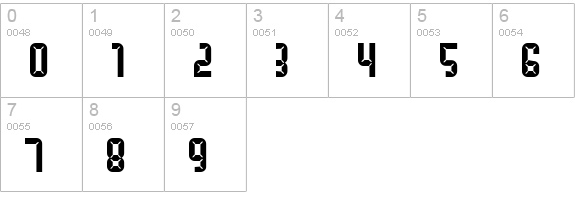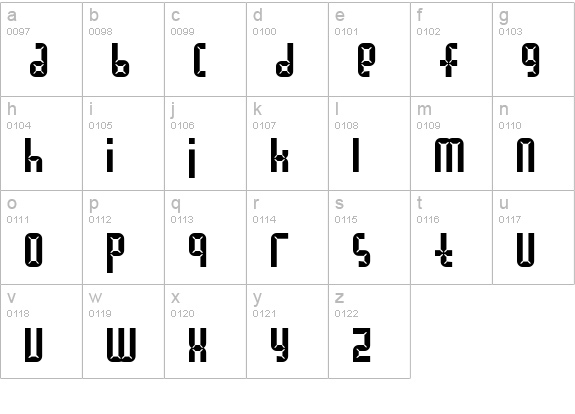
Xefus Font Details
Xefus font is a stunning and versatile typeface that effortlessly combines elegance with modernity. Its sleek lines and unique design make it perfect for a wide range of creative projects, from branding to editorial design. The Xefus font exudes a sense of sophistication and style, making it a standout choice for any designer looking to make a statement. What sets Xefus font apart is not only its aesthetic appeal but also its accessibility. This premium font is available for free download at FontsMarket.com, making it easily accessible to designers of all levels. Whether you're working on a personal project or a professional assignment, Xefus font is sure to elevate your designs and leave a lasting impression. With its clean lines, sharp angles, and graceful curves, Xefus font is a true gem in the world of typography. Its versatility and timeless appeal make it a valuable addition to any designer's toolkit. Download Xefus font today and unleash your creativity with this exceptional typeface.